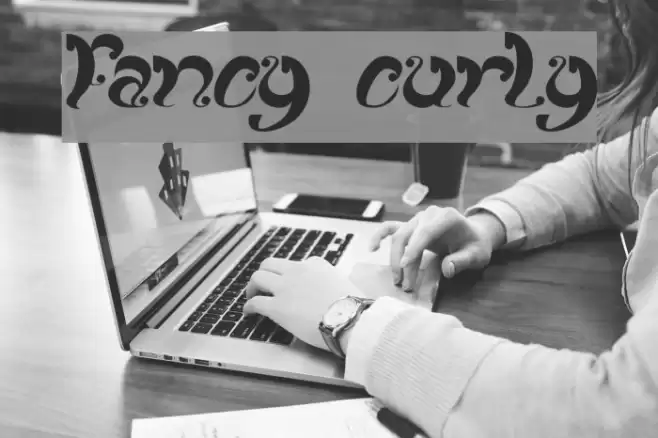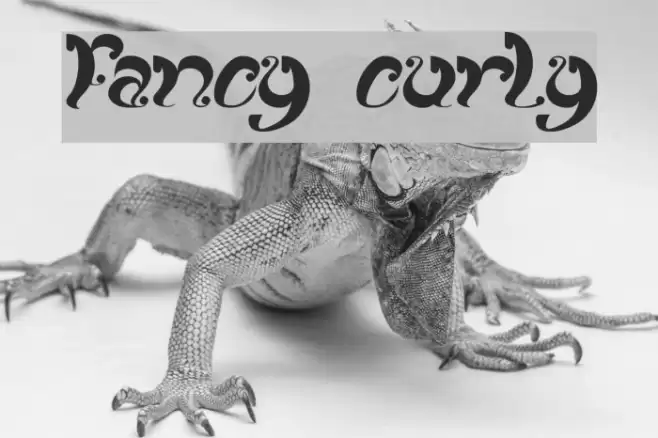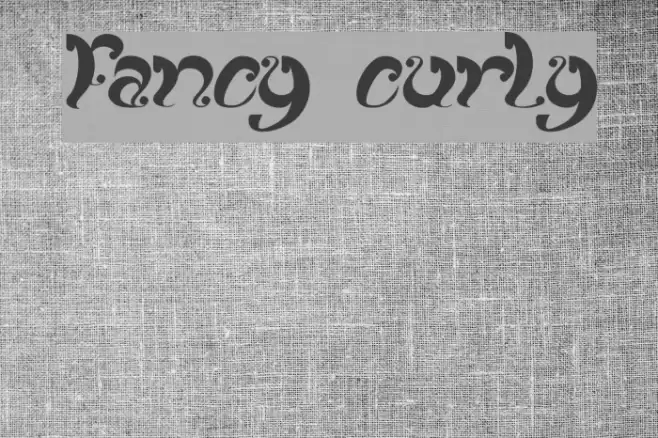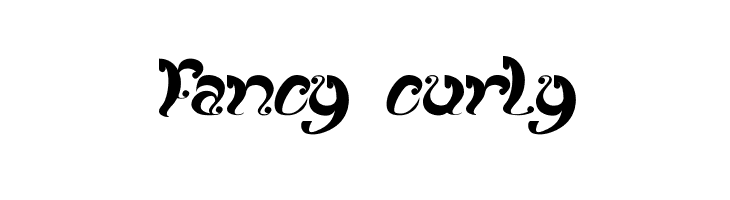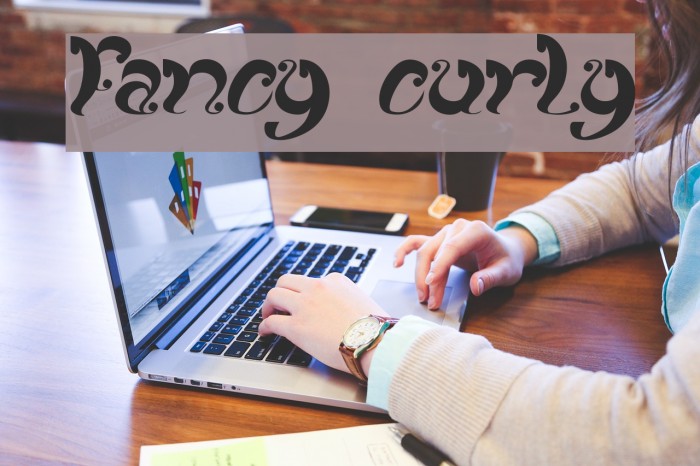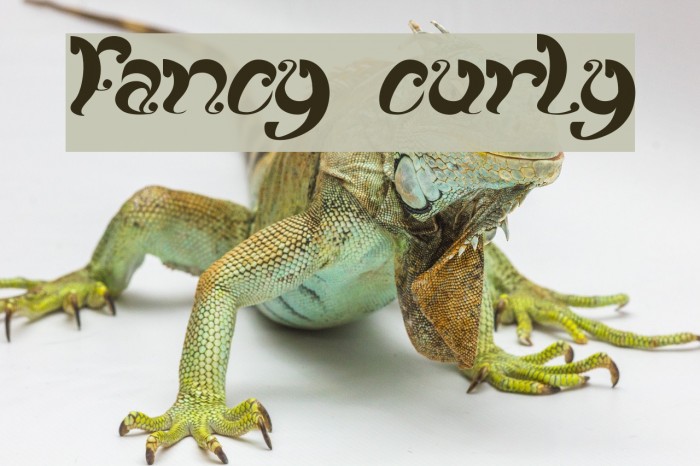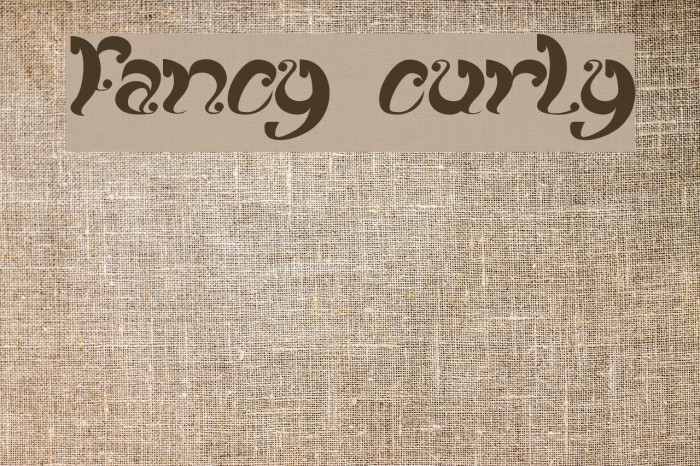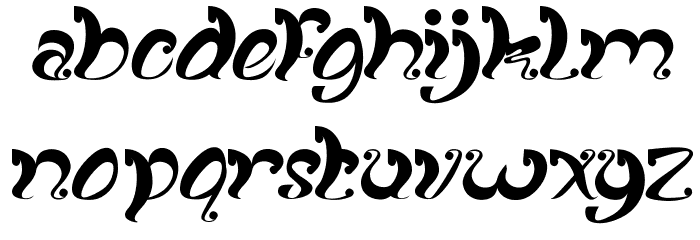
fancy curly
This font features an elaborate and whimsical design with curly and ornate elements. Each character is crafted with intricate swirls and loops, giving it a playful and artistic appearance. The strokes are bold and consistent, creating a strong visual impact. The font's unique style makes it stand out, with each letter exhibiting a distinct personality. The overall aesthetic is both decorative and expressive, ideal for projects that require a touch of creativity and flair.
A whimsical and ornate font with curly, artistic elements.
- Proposed Projects: Perfect for invitations, greeting cards, artistic posters, or branding that requires a creative and playful touch.
- Overall Style: Decorative
- Use Case: Logos, Headlines, Artistic projects